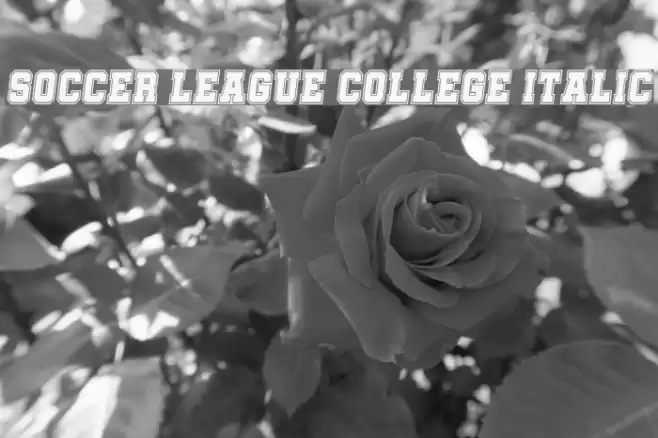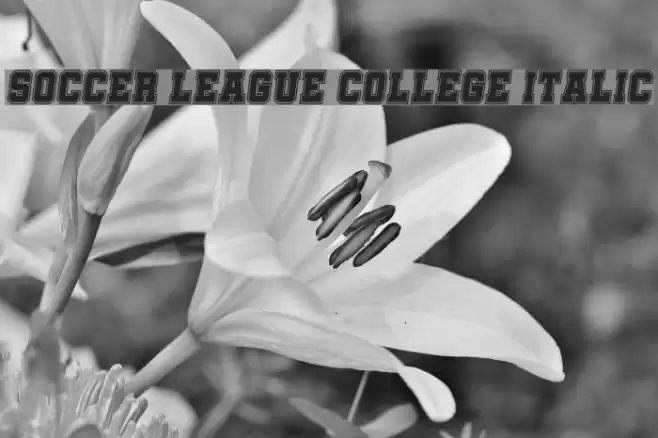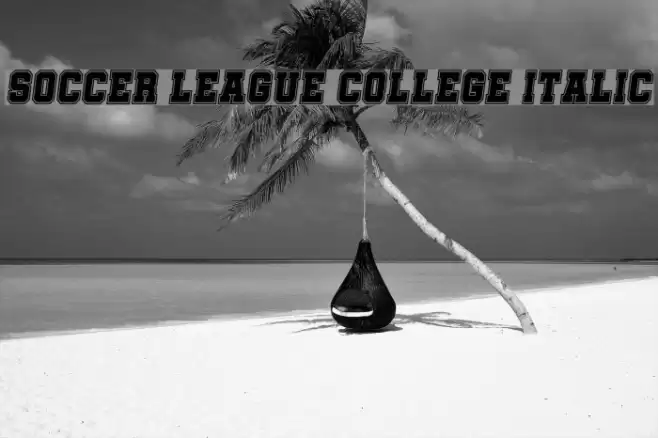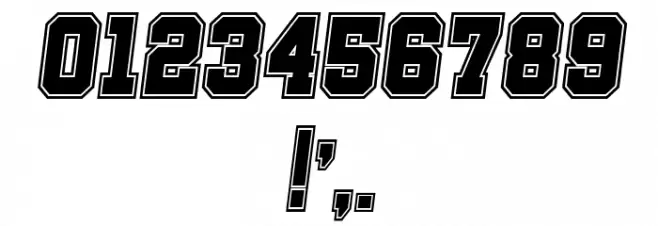
Soccer League College Italic Font
Soccer League College Italic Description
This font features a bold, collegiate style with a strong, athletic presence. The characters are outlined, providing a sense of depth and dimension, reminiscent of varsity jackets and sports team logos. The uppercase letters are robust and commanding, while the lowercase letters maintain the same boldness, ensuring consistency across text. The numbers and special characters follow the same design ethos, making them suitable for sports-related contexts. The italicized slant adds a dynamic and energetic feel, enhancing its suitability for competitive and spirited themes.
Bold, outlined collegiate font with an athletic, italicized style from Uncategorized fonts.
- Proposed Projects: Ideal for sports team branding, college event posters, athletic apparel design, and dynamic logo creation.
- Overall Style: Athletic, Collegiate, Dynamic
- Use Case: Headlines, Logos, Sports Branding